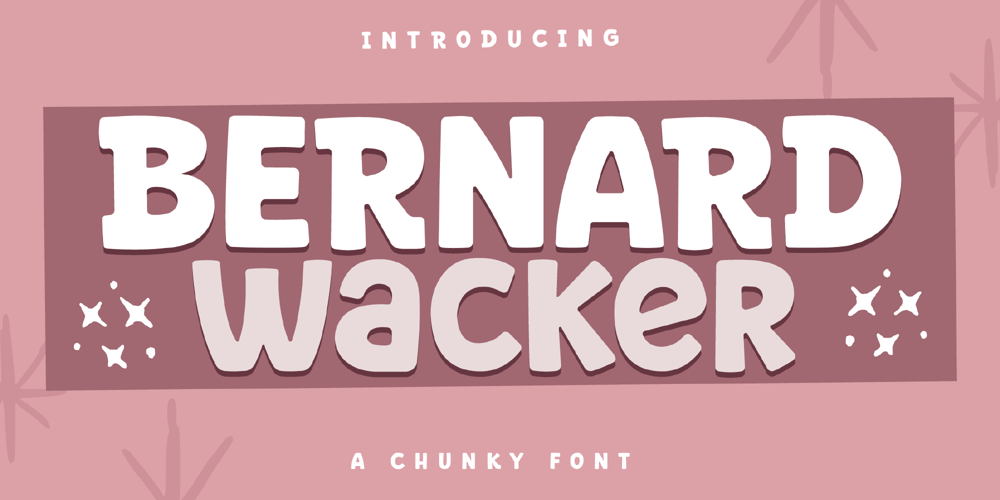
Bernard Wacker Font Family was designed by Heru Utama Putra and published by Letterena Studios. Bernard Wacker contains 2 styles and family package options. Bernard Wacker is a modern and classic slab serif font with a unique and fancy look. This typeface is perfect for an elegant & luxury logo, book or movie title design, fashion brand, magazine, clothes, lettering, quotes, and so much more.